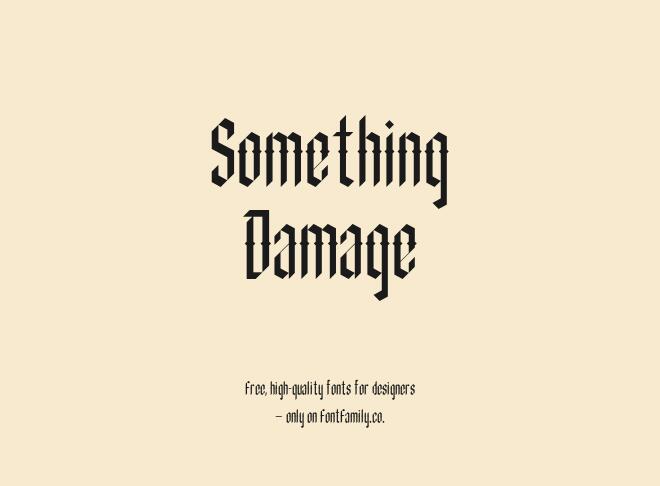
Something Damage Font
The Something Damage Font is a unique, rustic typeface with a playful twist. Designed by Creative Typo, this font brings a retro charm to any design project. With its decorative elements, it resembles the vintage signs of old storefronts, making it ideal for branding, logos, and eye-catching headlines. The font's playful nature makes it a great choice for designs aimed at a younger audience. It's a beautiful blend of traditional and modern aesthetics, setting it apart from other typefaces. The Something Damage Font, with its unique style and versatility, is an excellent font choice for designers looking to add a touch of retro appeal to their work. It's free for personal use, making it accessible for anyone interested in experimenting with typography in their designs.